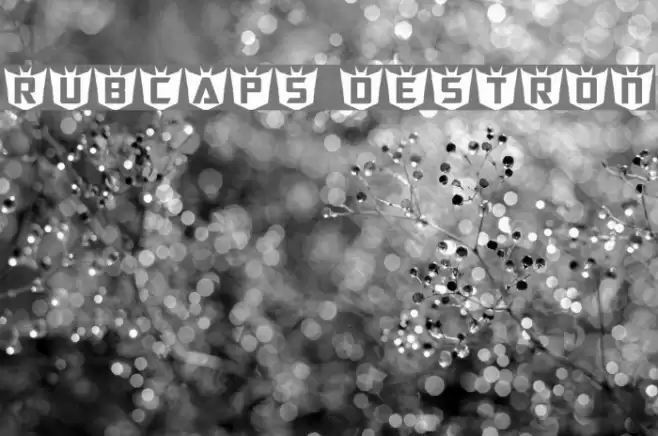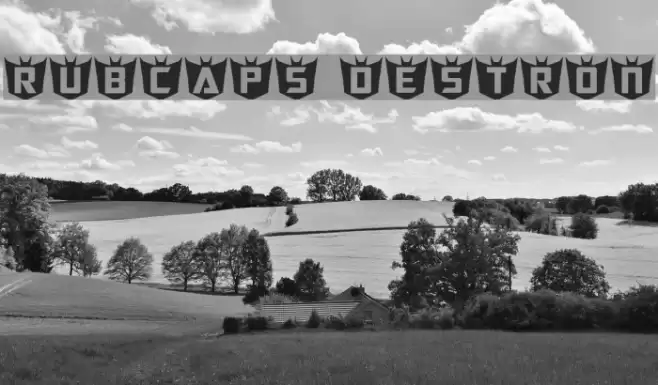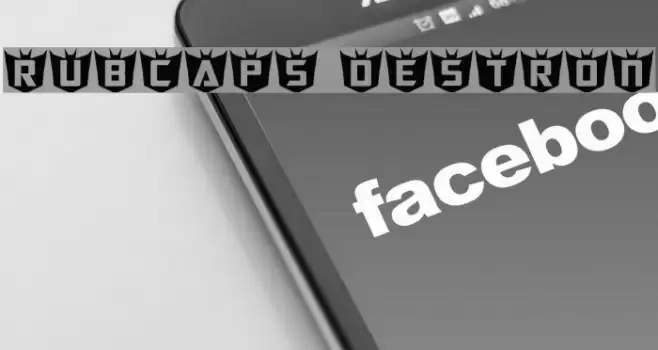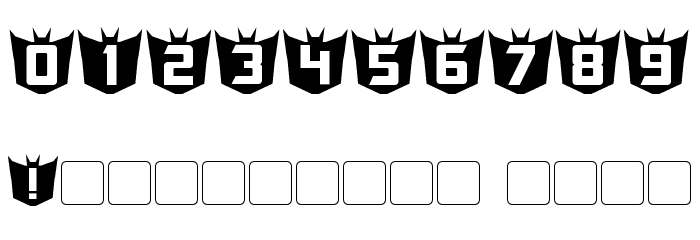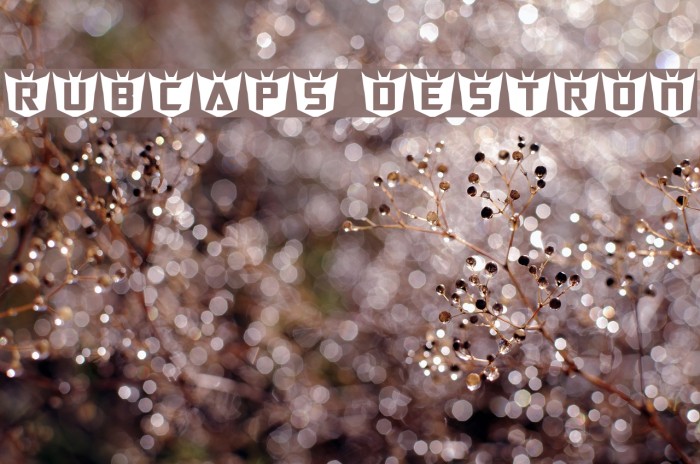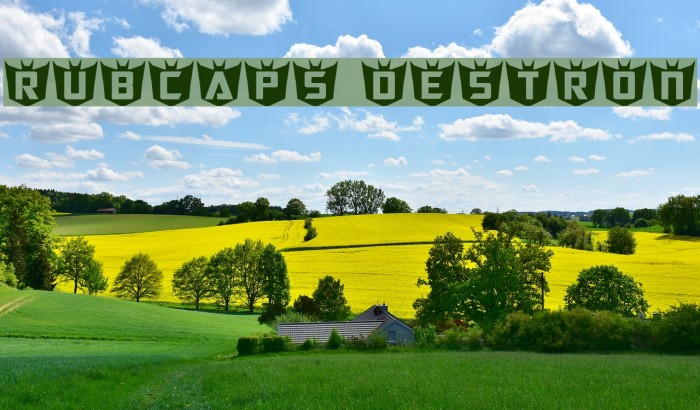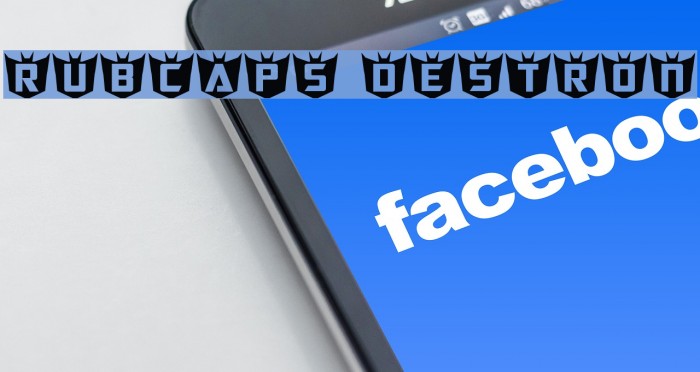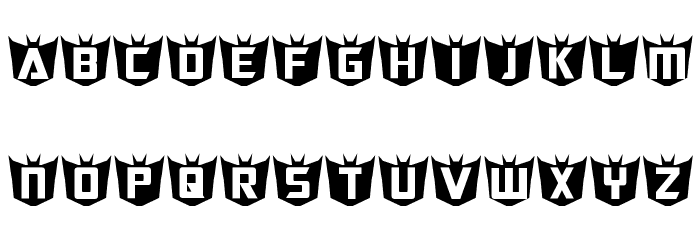
RubCaps Destron Font
RubCaps Destron Description
This font features a bold, angular design with a futuristic and robotic aesthetic. Each character is enclosed within a shield-like shape, giving it a distinctive and powerful appearance. The uppercase letters are sharp and geometric, while the numbers maintain the same bold style. The font's unique design elements make it stand out, with a strong emphasis on symmetry and sharp edges. The overall look is reminiscent of a sci-fi or tech-inspired theme, making it ideal for projects that require a modern and edgy feel.
A bold, angular font with a futuristic, robotic aesthetic from Uncategorized fonts.
- Proposed Projects: Ideal for sci-fi themed posters, video game titles, tech branding, and futuristic designs.
- Overall Style: Futuristic, Edgy